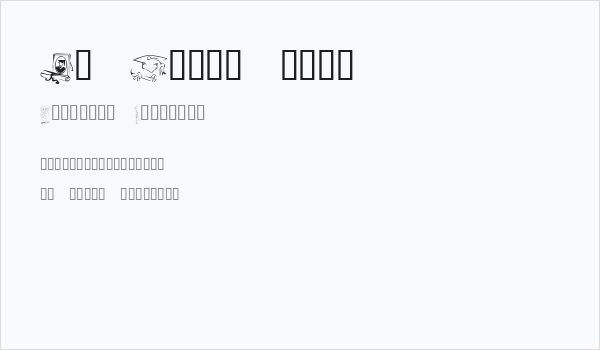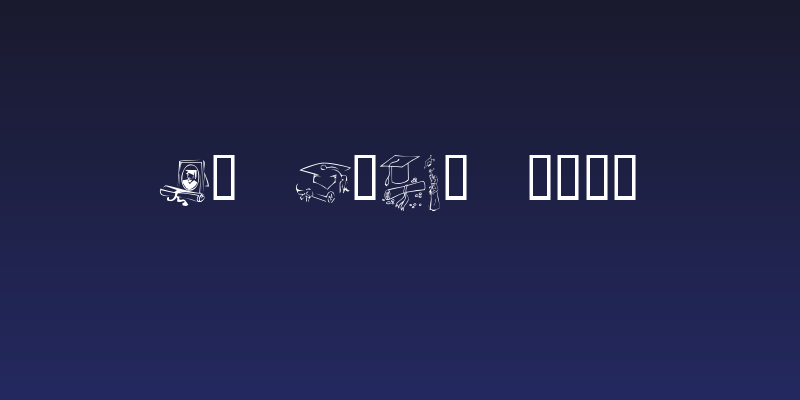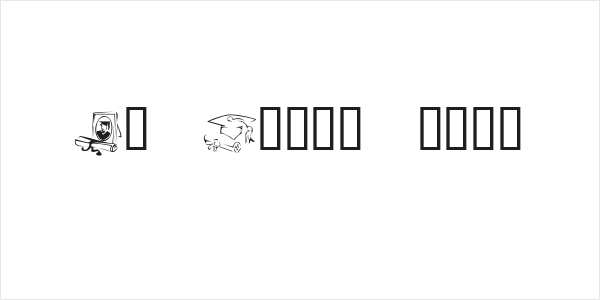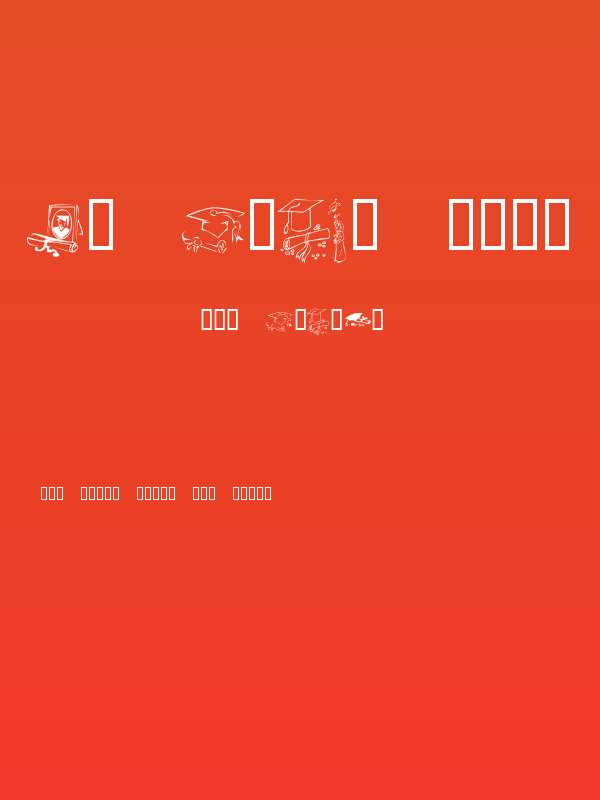
KR Grads 2002 Font
KR Grads 2002 Description
This font is a playful and decorative typeface that incorporates graduation-themed illustrations. Each character is uniquely designed with elements such as graduation caps, diplomas, and celebratory motifs. The font is highly stylized, making it ideal for projects that require a festive and academic touch. The characters are bold and have a consistent width, providing a uniform appearance. The illustrations are integrated seamlessly into the letterforms, adding a whimsical and creative flair. This font is perfect for graduation announcements, party invitations, and educational materials that aim to capture the spirit of achievement and celebration.
| Proposed Projects | Graduation announcements, party invitations, educational materials, celebratory banners. |